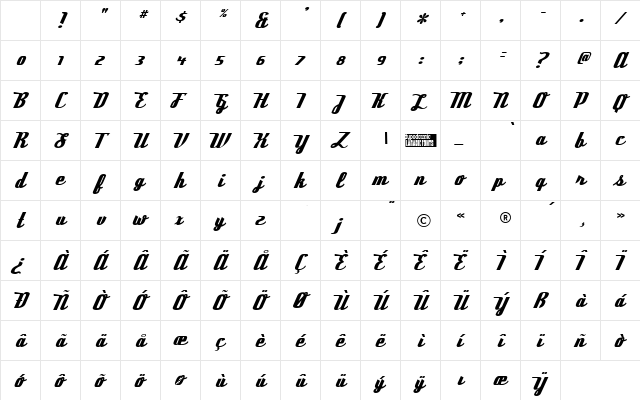
Complete Deftone Stylus Regular glyph index. Displaying only characters natively supported by Deftone Stylus Regular font.
Deftone Stylus is a composed and adaptable typeface that performs quietly and consistently across a wide range of design contexts.